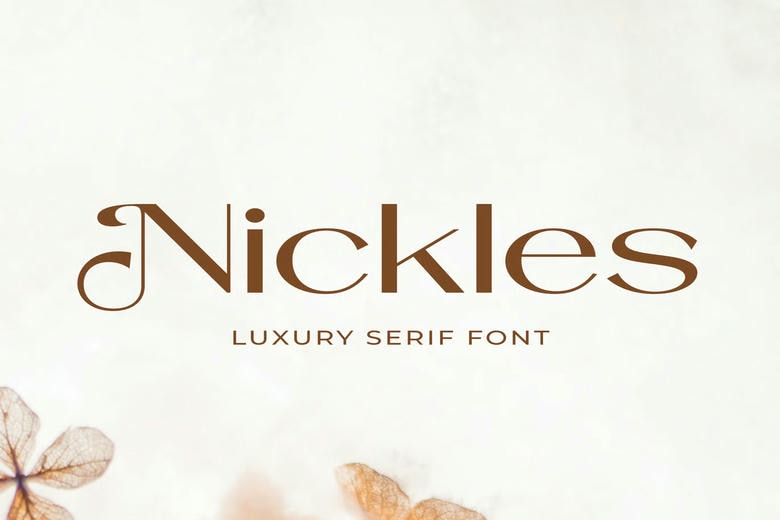
Nickles Font
Nickles is a luxury sans-serif font that combines modern simplicity with a touch of elegance. Its clean lines and balanced proportions make it a great choice for branding, logos, fashion editorials, packaging, social media graphics, and high-end marketing materials.
Its modern style brings a polished, professional look to any design, while still being easy to read and visually attractive.
Nickles Sans Serif Font